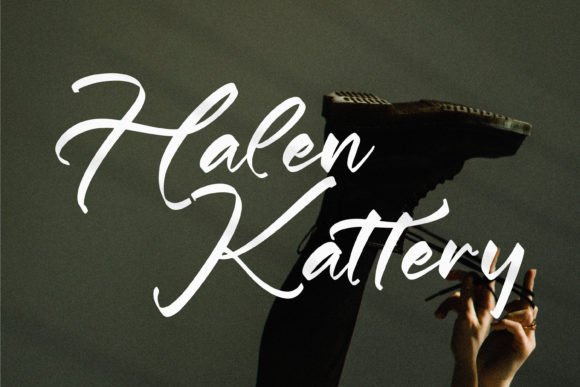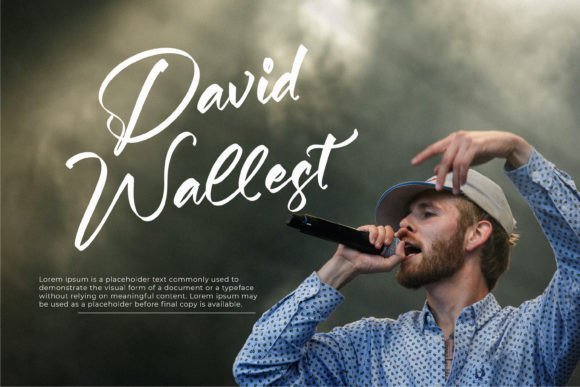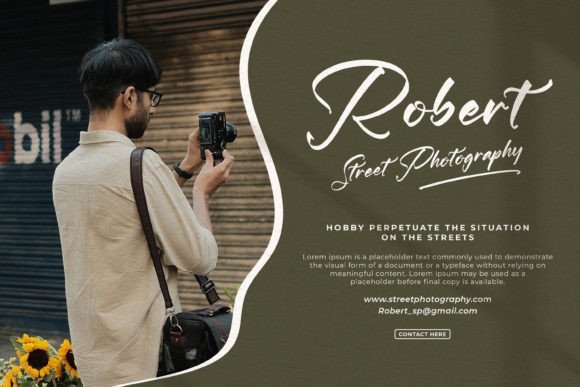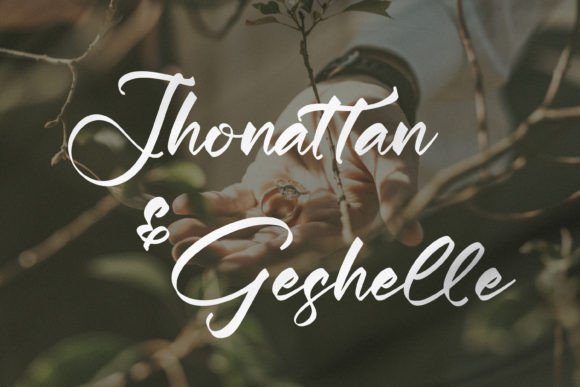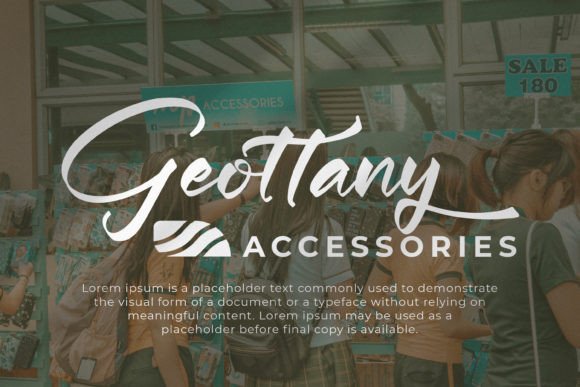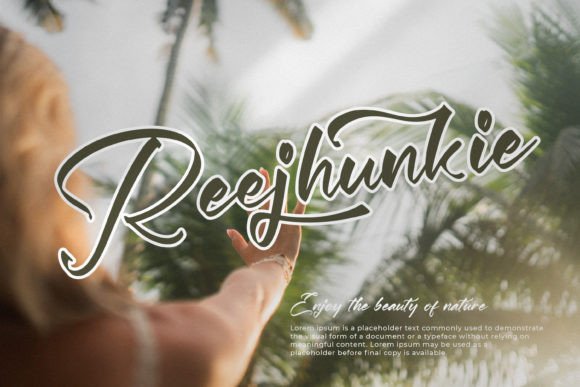
Introducing Genyallic Font: Elevate Your Designs with Premium Modern Calligraphy
In the world of design, typography plays a crucial role in conveying messages, expressing creativity, and establishing brand identity. For designers and crafters seeking a touch of luxury and sophistication, Genyallic Font is an exceptional choice. This premium modern calligraphy font is designed to elevate your projects, making them stand out with elegance and refinement.
What is Genyallic Font?
Genyallic is a meticulously crafted calligraphy font, tailored to meet the needs of designers and crafters who aim to add a premium touch to their work. Its modern and fluid strokes exude a sense of luxury, making it perfect for a wide range of applications, from logos and branding to homeware designs, product packaging, and more.
Key Features of Genyallic Font
- Premium Quality: Genyallic Font is designed with high-end quality in mind, ensuring that your designs look professional and sophisticated.
- Modern Calligraphy: Its modern calligraphy style gives your text a fresh and contemporary look, perfect for designs that require a touch of elegance.
- Versatility: Genyallic Font is incredibly versatile, suitable for various projects such as logos, branding, homeware designs, product packaging, mugs, quotes, posters, shopping bags, t-shirts, book covers, business cards, invitation cards, greeting cards, labels, photography, watermarks, and special events.
- Ease of Use: This font is easy to integrate into your designs, allowing you to focus on creativity rather than technical complexities.
Applications of Genyallic Font
Genyallic Font’s versatility makes it an excellent choice for a multitude of design projects. Here are some of the areas where it truly shines:
- Logos and Branding: Create a lasting impression with a unique and elegant logo that speaks to your brand’s luxury and quality.
- Product Packaging: Elevate your product’s presentation with sophisticated packaging designs that stand out on store shelves.
- Homeware Designs: Add a touch of luxury to home decor items such as cushions, wall art, and kitchenware.
- Stationery and Cards: Make your greeting cards, invitation cards, and business cards more special with elegant typography.
- Merchandise: Design eye-catching t-shirts, mugs, and shopping bags that appeal to customers looking for premium products.
Why Choose Genyallic Font?
In a sea of fonts, Genyallic stands out for its unique blend of modernity and elegance. Here are compelling reasons to choose Genyallic Font for your next project:
- Unique Style: Genyallic offers a distinct calligraphy style that can set your designs apart from the competition.
- High Readability: Despite its elegant and cursive nature, Genyallic Font maintains high readability, ensuring your message is conveyed clearly.
- Support for Various Languages: With support for multiple languages, Genyallic Font is a great choice for global brands and designers.
Tips for Using Genyallic Font Effectively
To maximize the impact of Genyallic Font in your designs, consider the following tips:
- Pair with Complementary Fonts: For optimal results, pair Genyallic Font with simple, sans-serif fonts to create contrast and visual interest.
- Experiment with Colors: While Genyallic Font looks stunning in black and dark colors, don’t hesitate to experiment with other hues to match your brand’s palette.
- Pay Attention to Spacing: Proper spacing is crucial for elegant designs. Ensure there’s adequate kerning and line spacing for readability and aesthetics.
Genyallic Font is a powerful tool for designers and crafters aiming to infuse their projects with a premium, modern calligraphy style. Its versatility, elegance, and high readability make it an excellent choice for a wide range of applications. By choosing Genyallic Font, you’re not just selecting a typeface; you’re elevating your designs to a new level of sophistication and luxury. Whether you’re working on logos, product packaging, homeware designs, or any other project that demands a touch of class, Genyallic Font is sure to exceed your expectations.